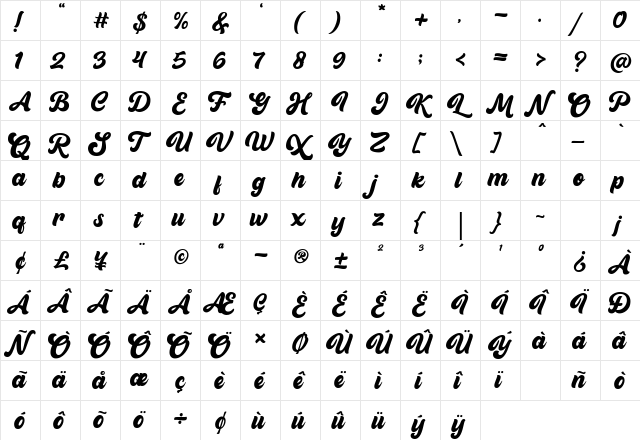
Gient Regular
Design Context for Gient Typeface
Gient is a composed and adaptable typeface that performs quietly and consistently across a wide range of design contexts.